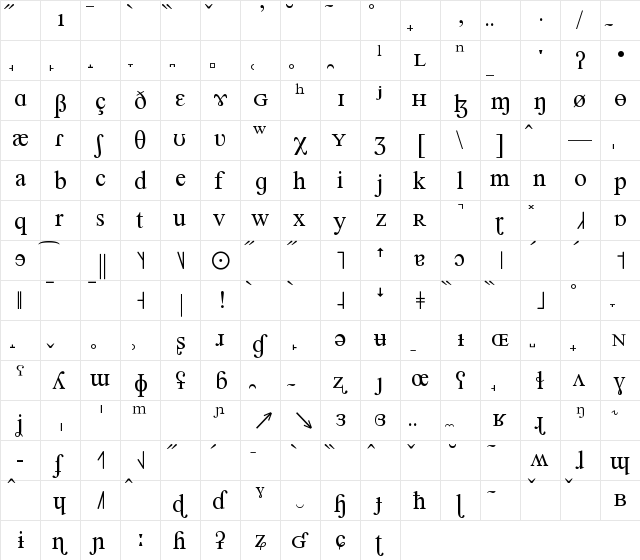
Newbury SILDoulos Regular Font Preview
Newbury SILDoulos Regular
Newbury SILDoulos Regular Font Details
Design Context for Newbury SILDoulos Typeface
Newbury SILDoulos takes a measured approach to typography — its balanced proportions and neutral character make it a reliable workhorse for both digital and print work.